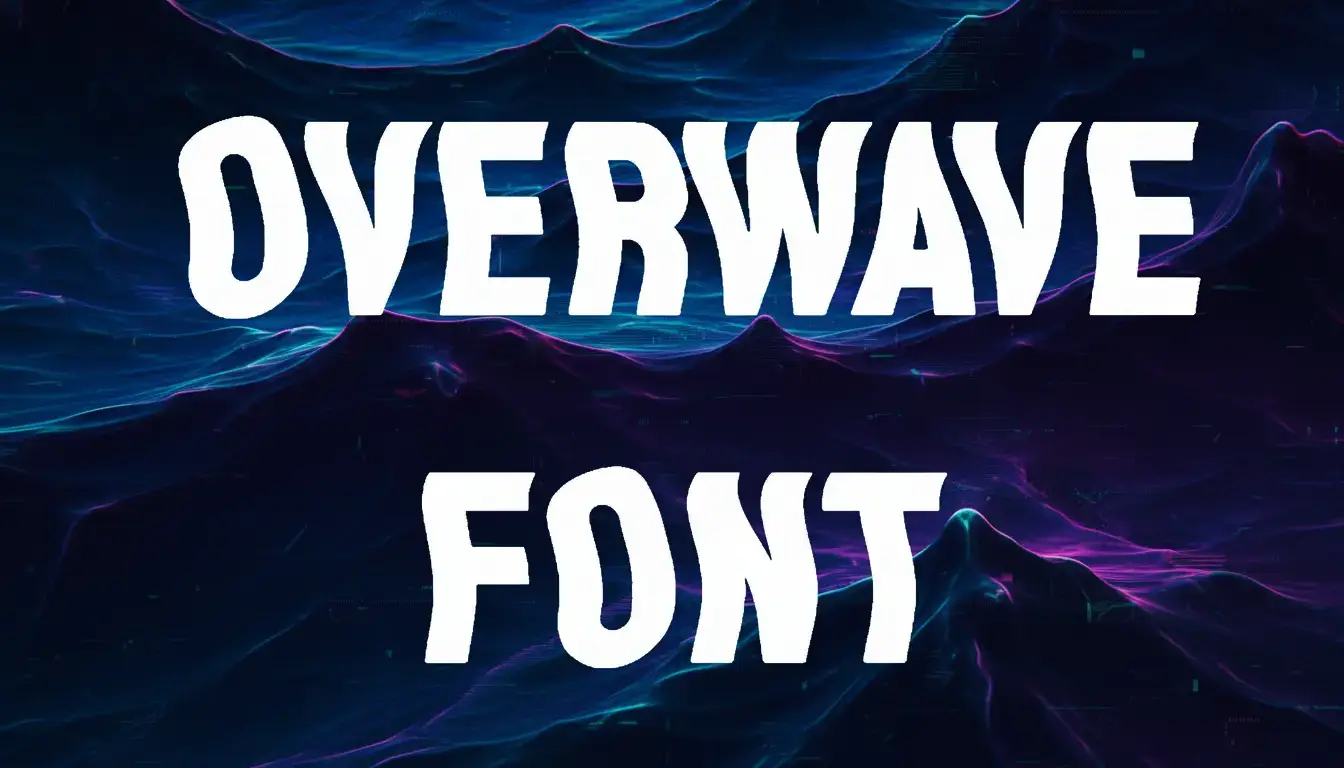
Overwave Font
Overwave Font Preview
Overwave
Overwave is a fancy font designed by Almarkhatype – Abdul Malik – Adriansyah and published by Almarkhatype. It's a decorative display font with plenty of personality, made to grab attention. It's a free download, and you can try it with your own text in the preview above first.
What You Can Type With Overwave
You get every letter from A to Z in both cases and all the numbers from 0 to 9, which means Overwave can handle full sentences, dates and prices. Common punctuation such as &, !, ? and @ is included as well. It also has the accented letters you need for Spanish, French, German, Portuguese and Italian.
Where Overwave Works Best
Think of Overwave for posters, logos and eye-catching headlines. Use it for one standout word or headline and let simpler fonts handle the rest.
Does Overwave support accented letters?
Yes. Overwave includes the accented letters needed for Spanish, French, German, Portuguese and Italian, so it works for more than just English.